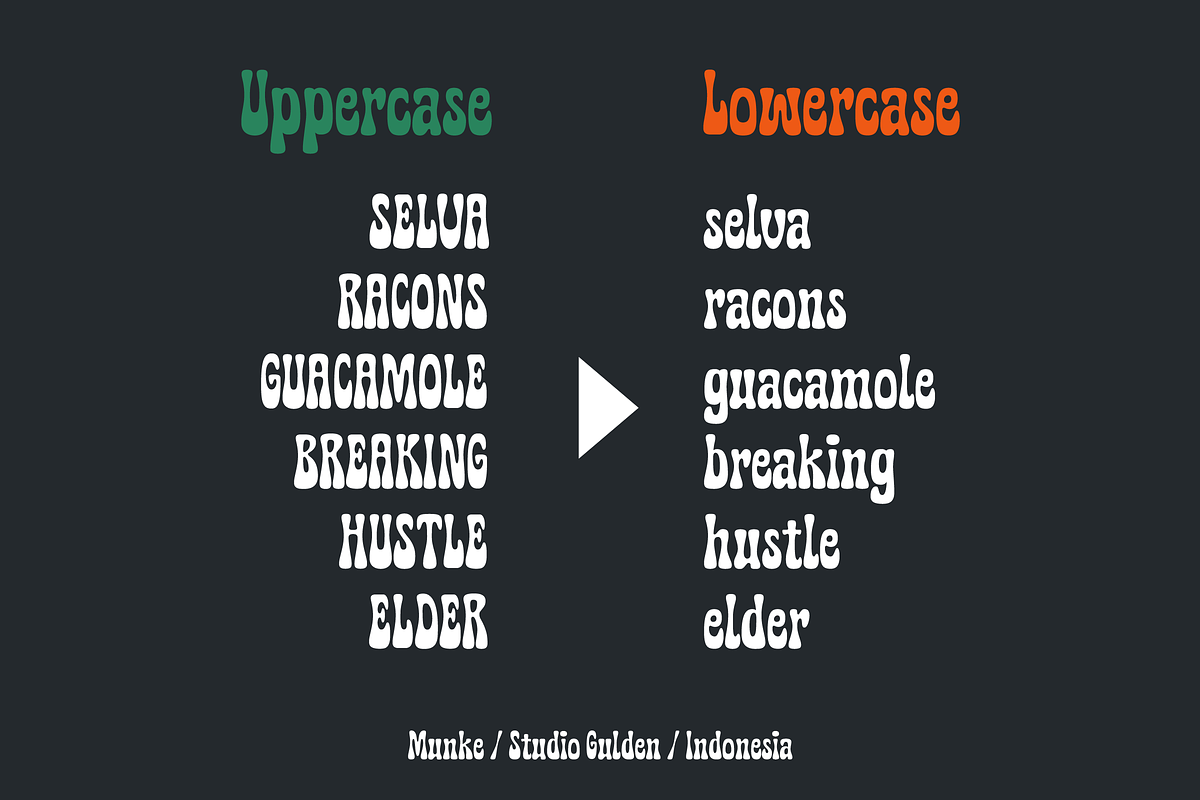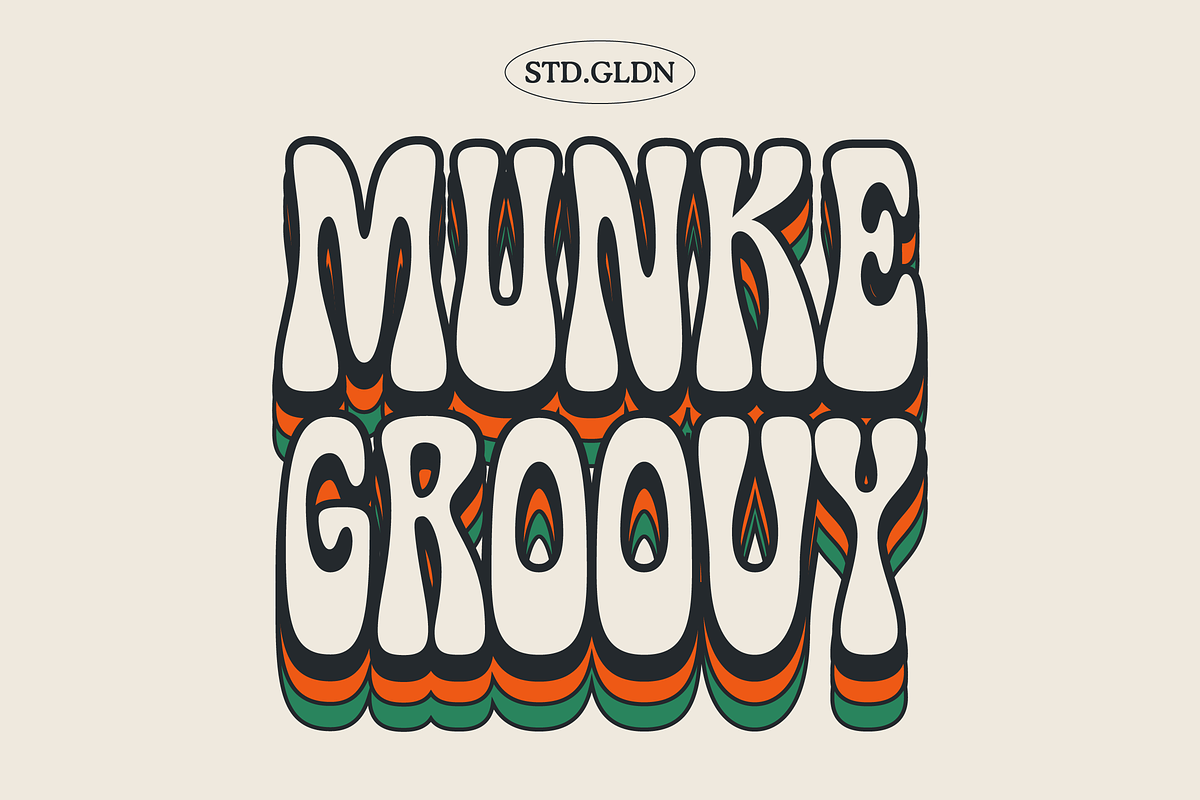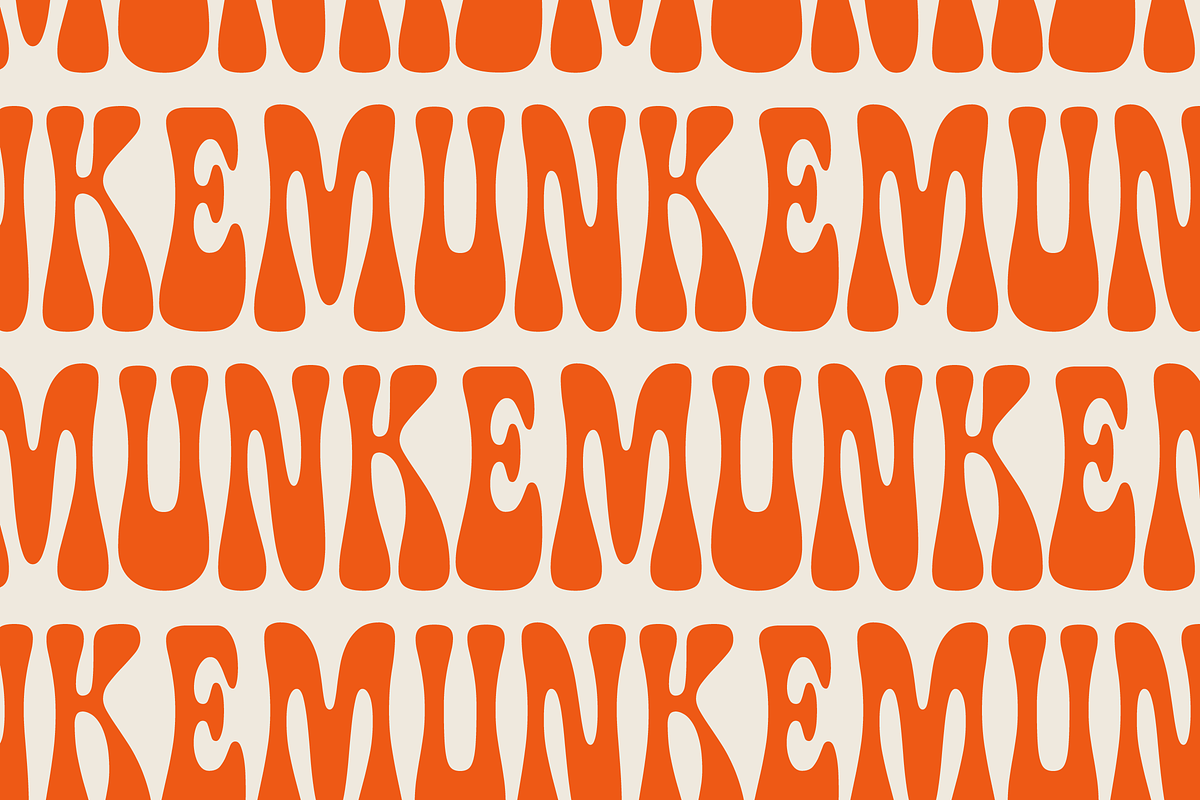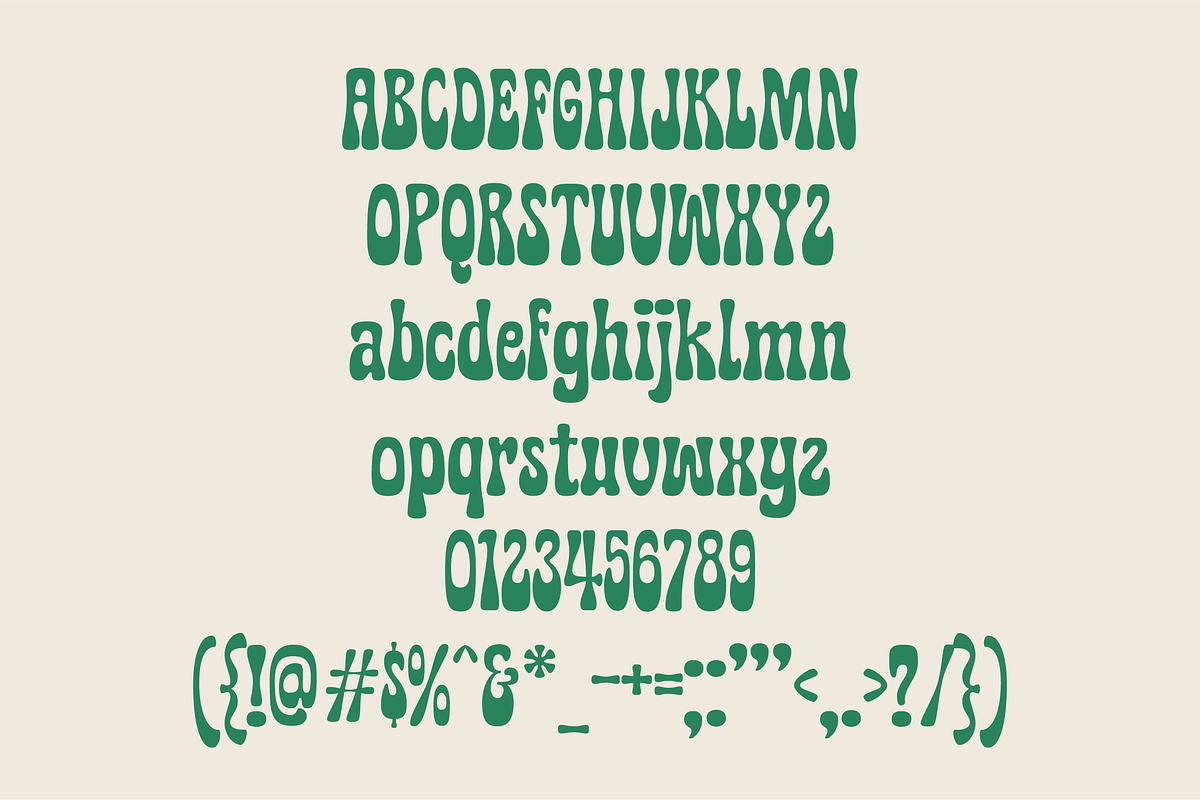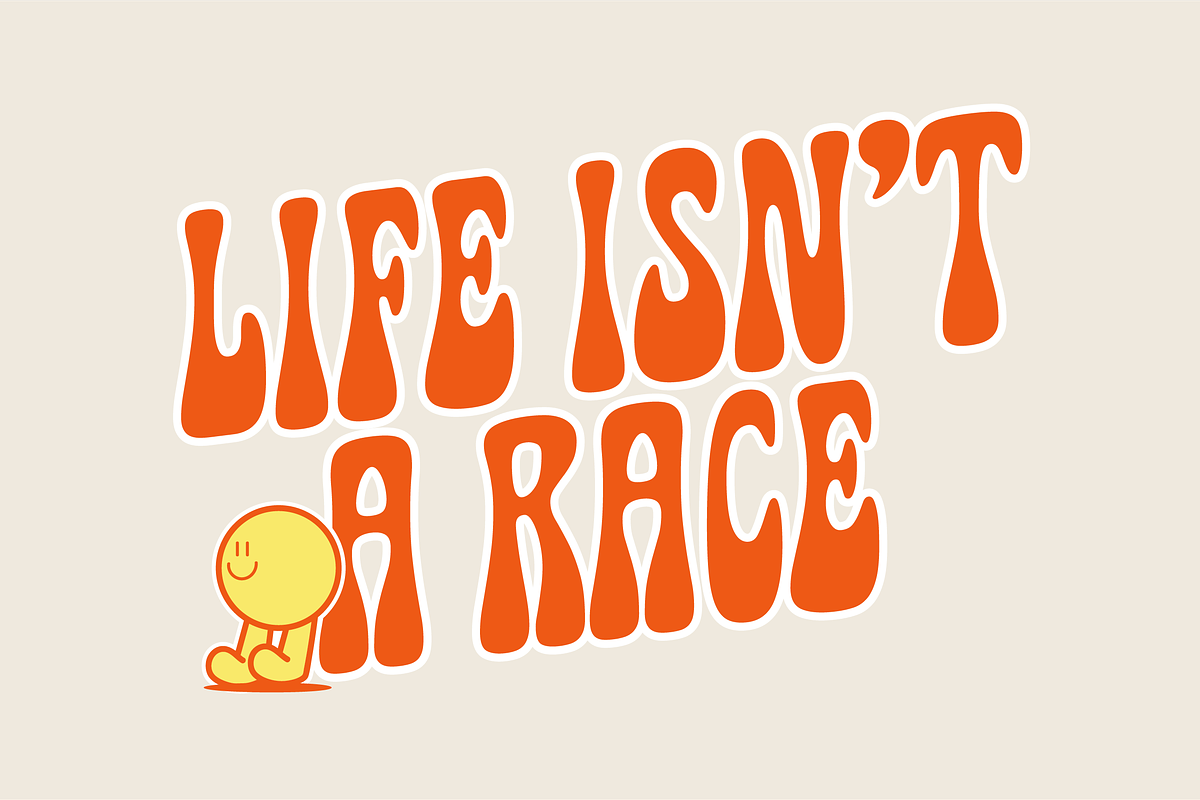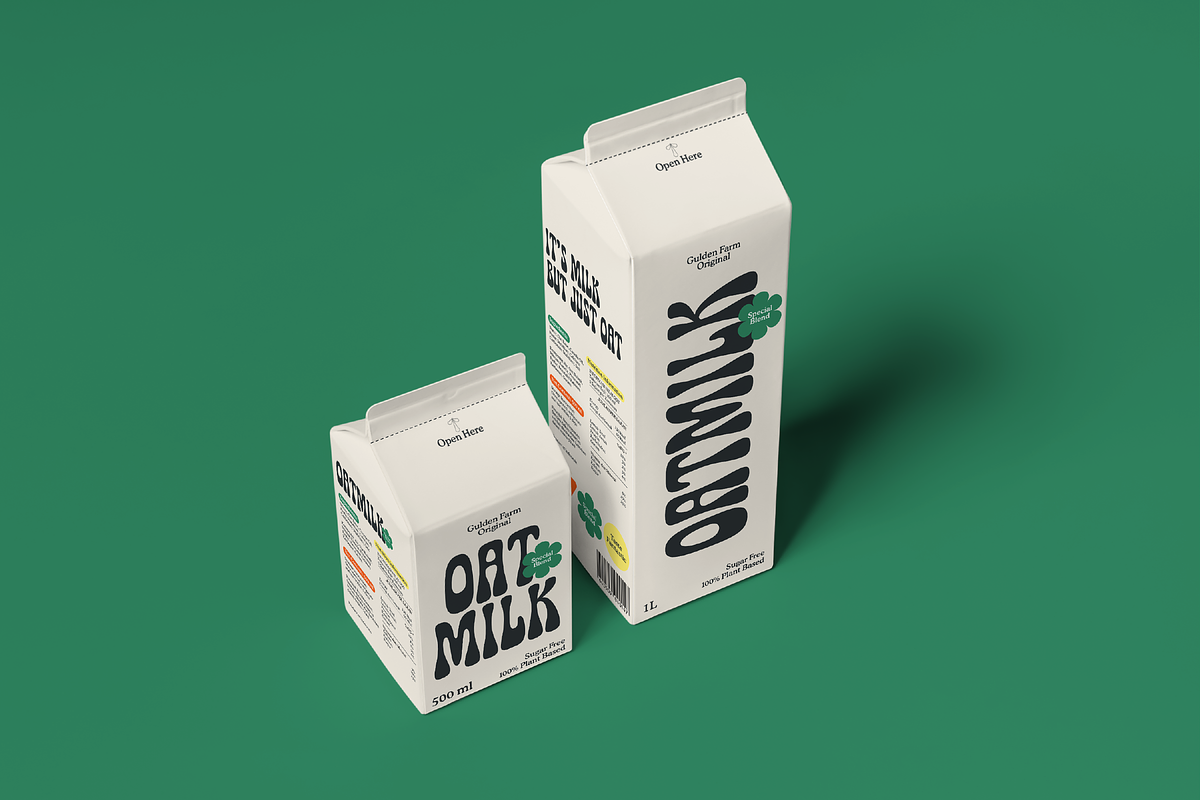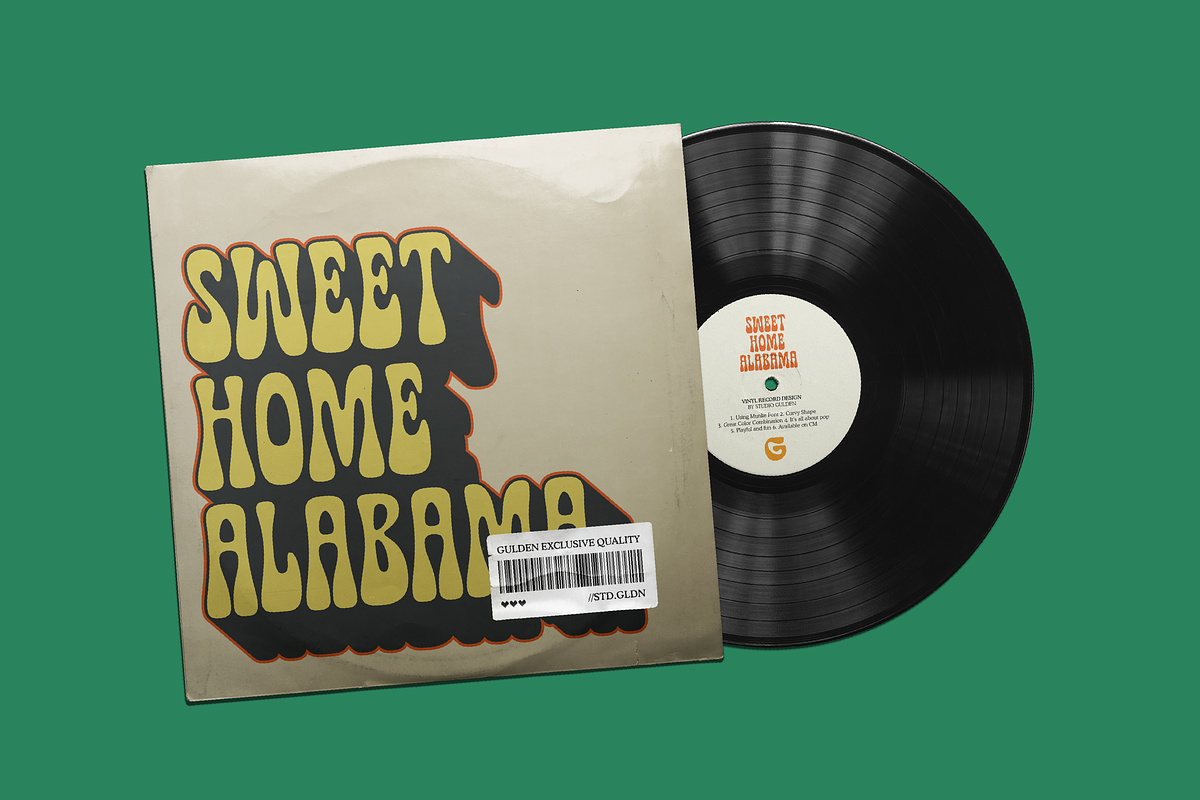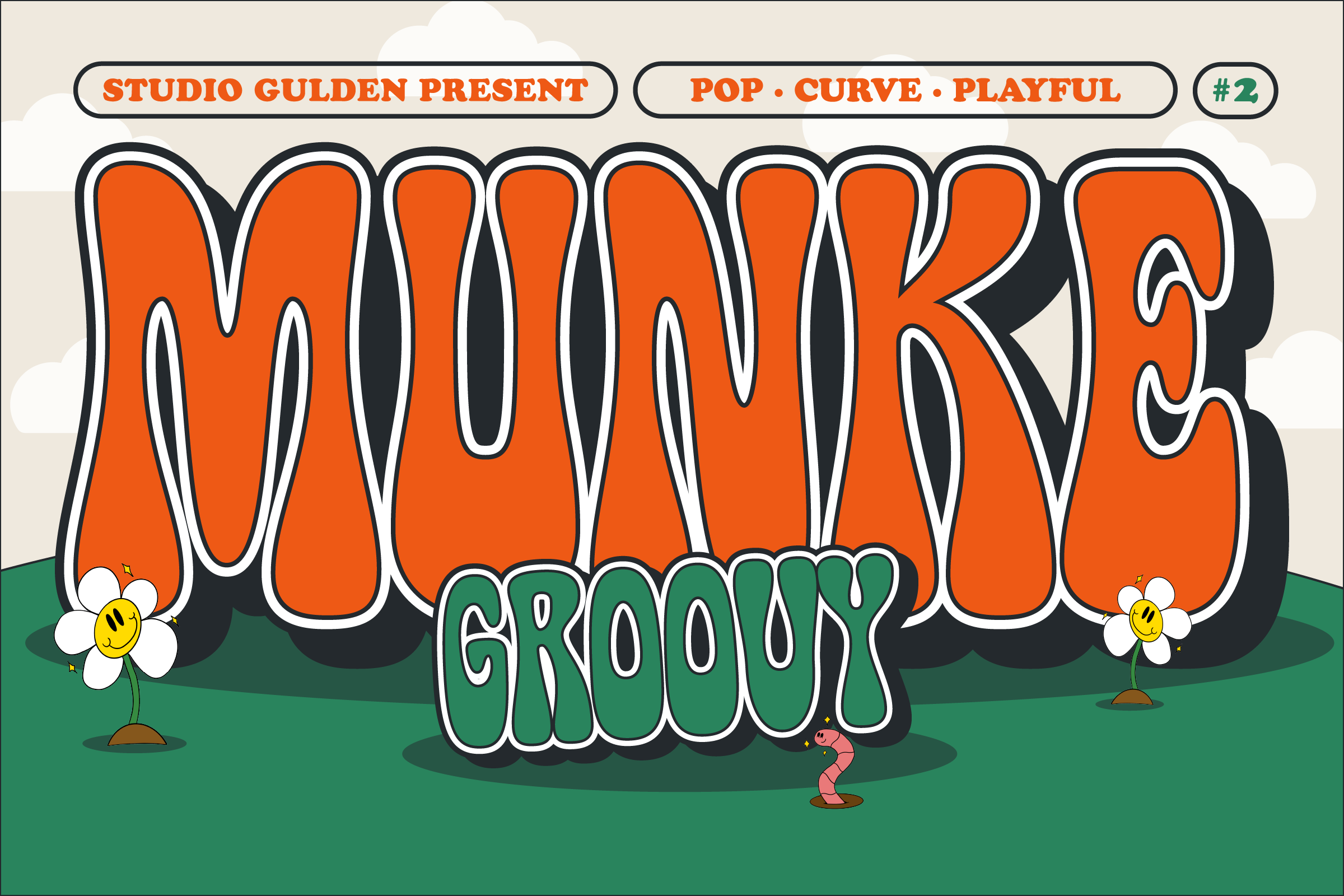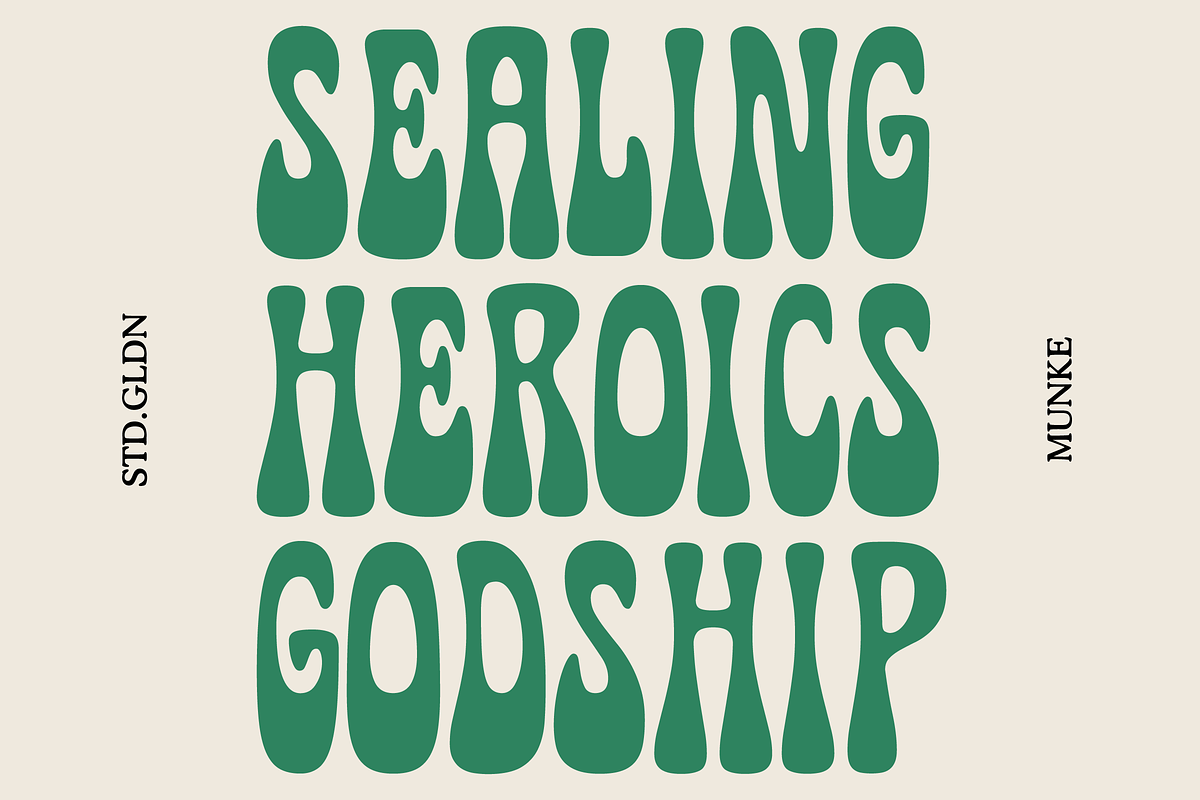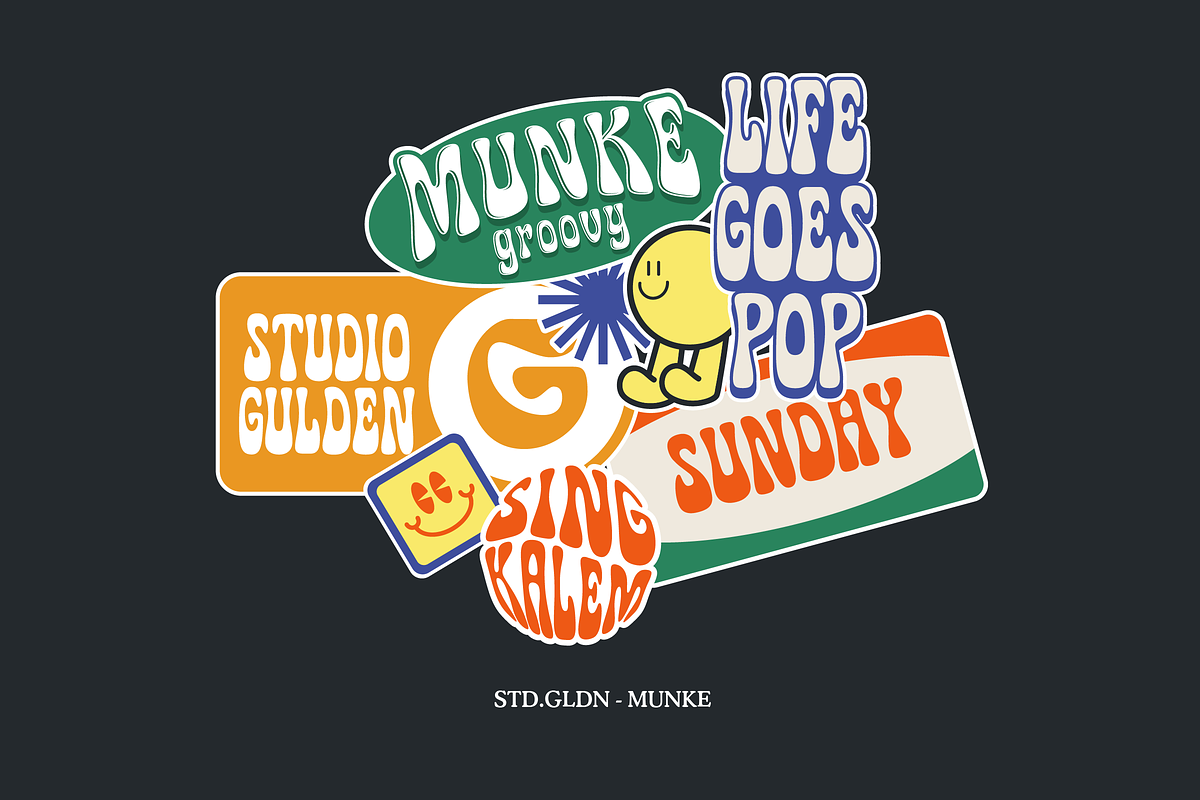
SG - MUNKE Groovy Display Font
SG - Munke is a groovy display font with a curvy base shape. Very suitable for you who want to make both vintage and modern pop designs. Include multilingual, uppercase, and lowercase.